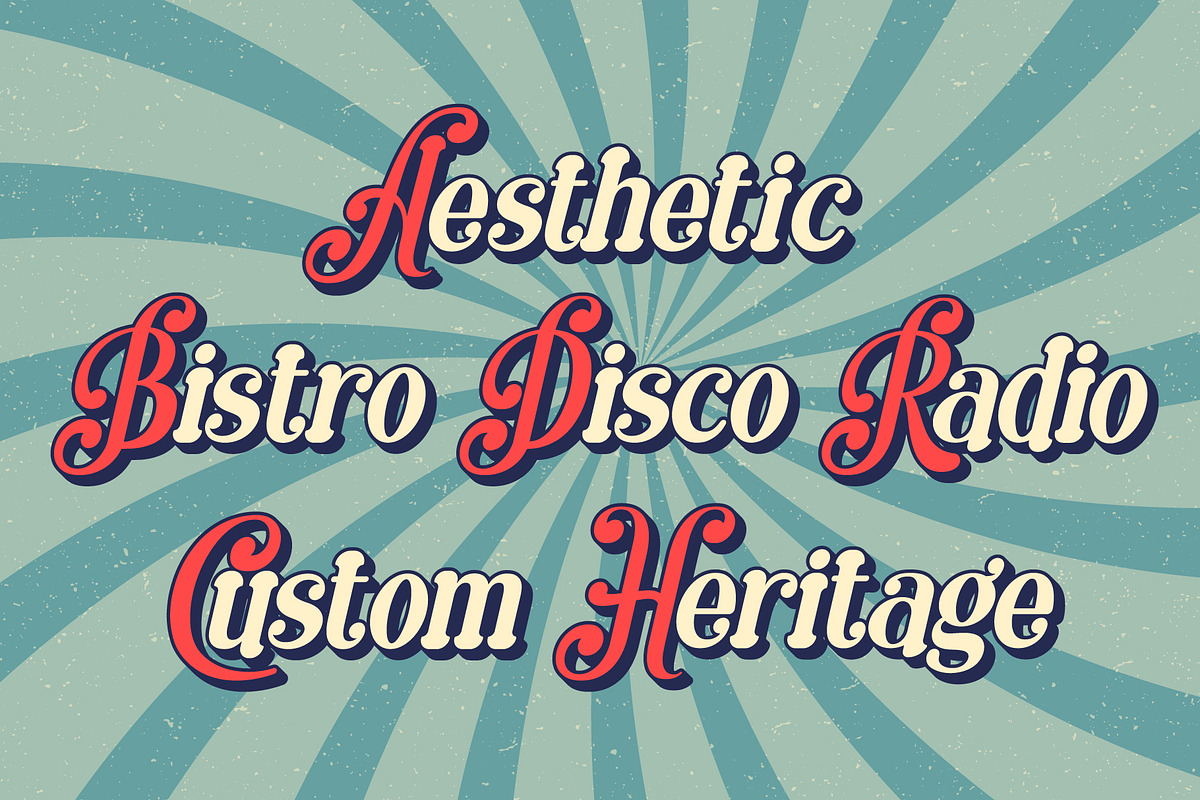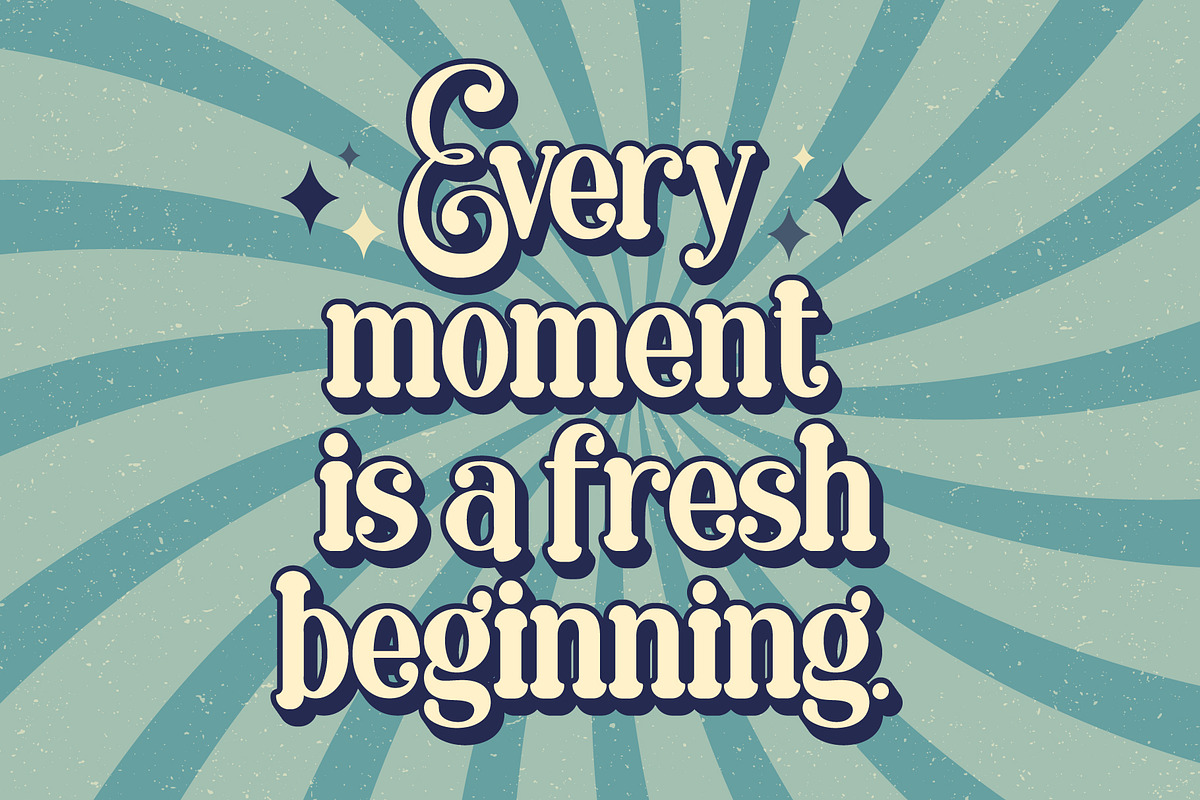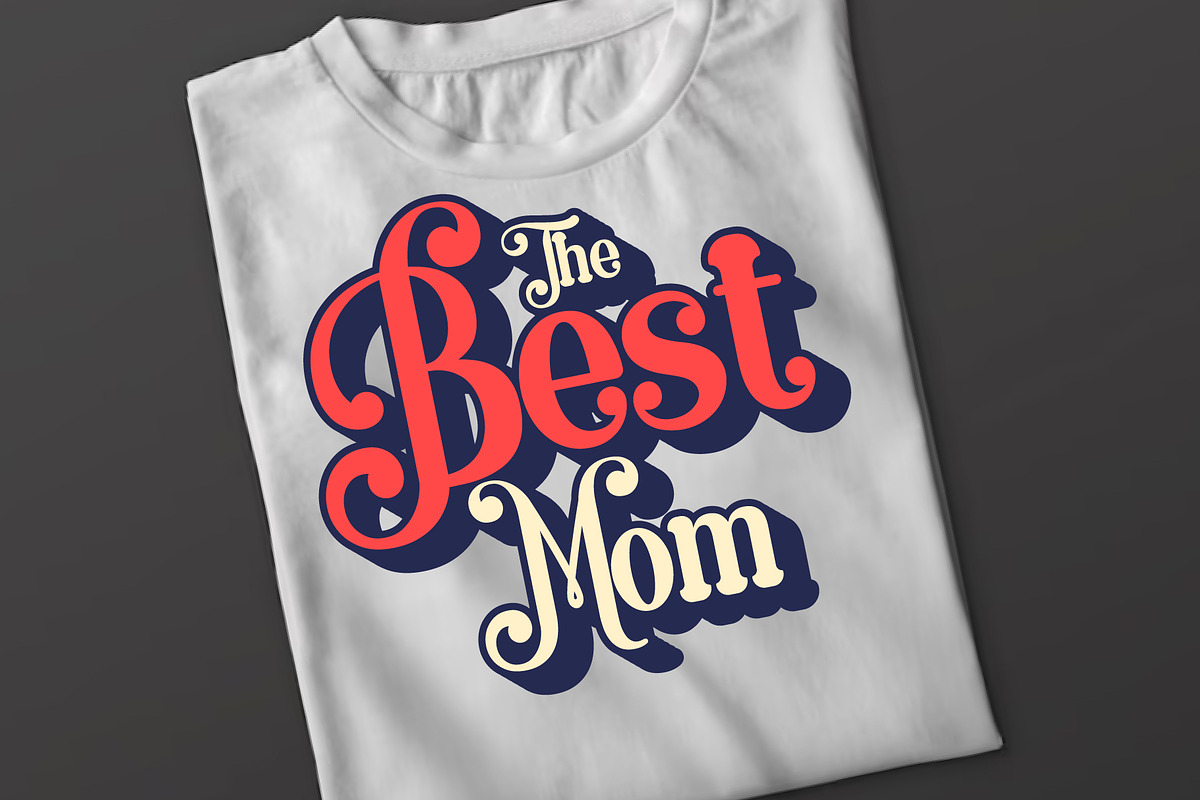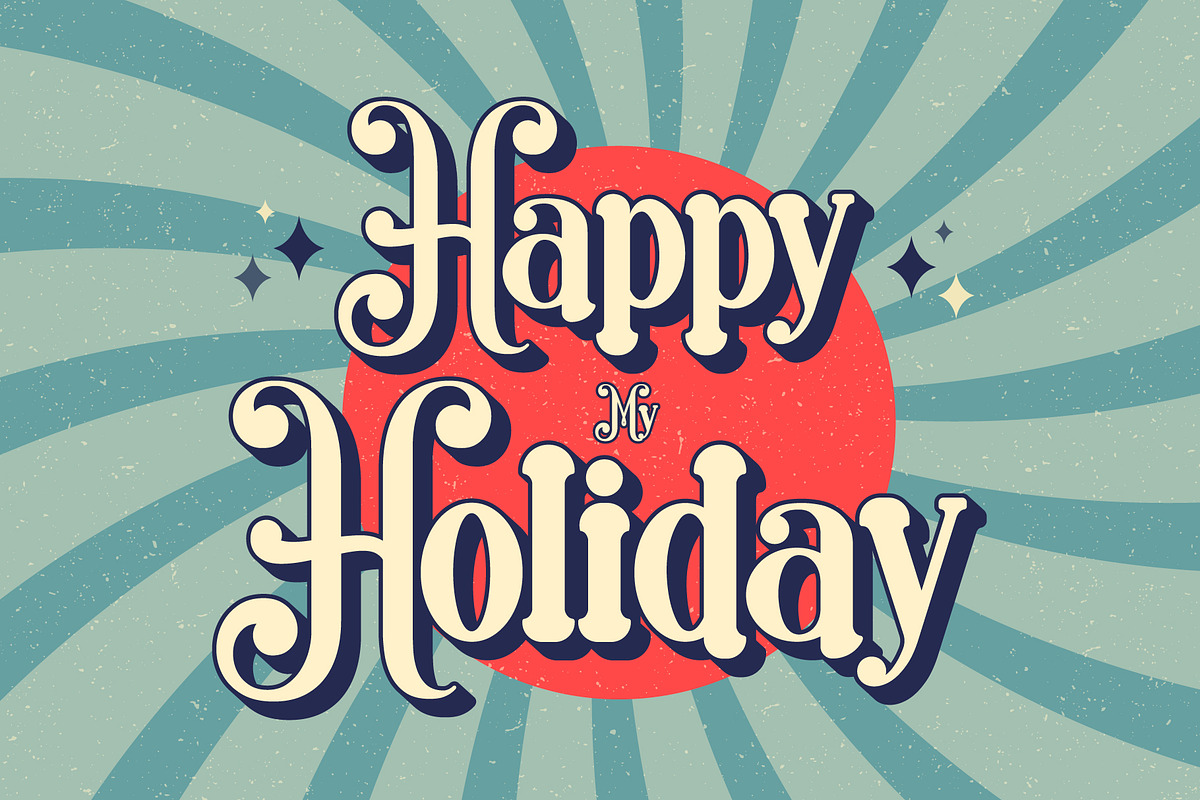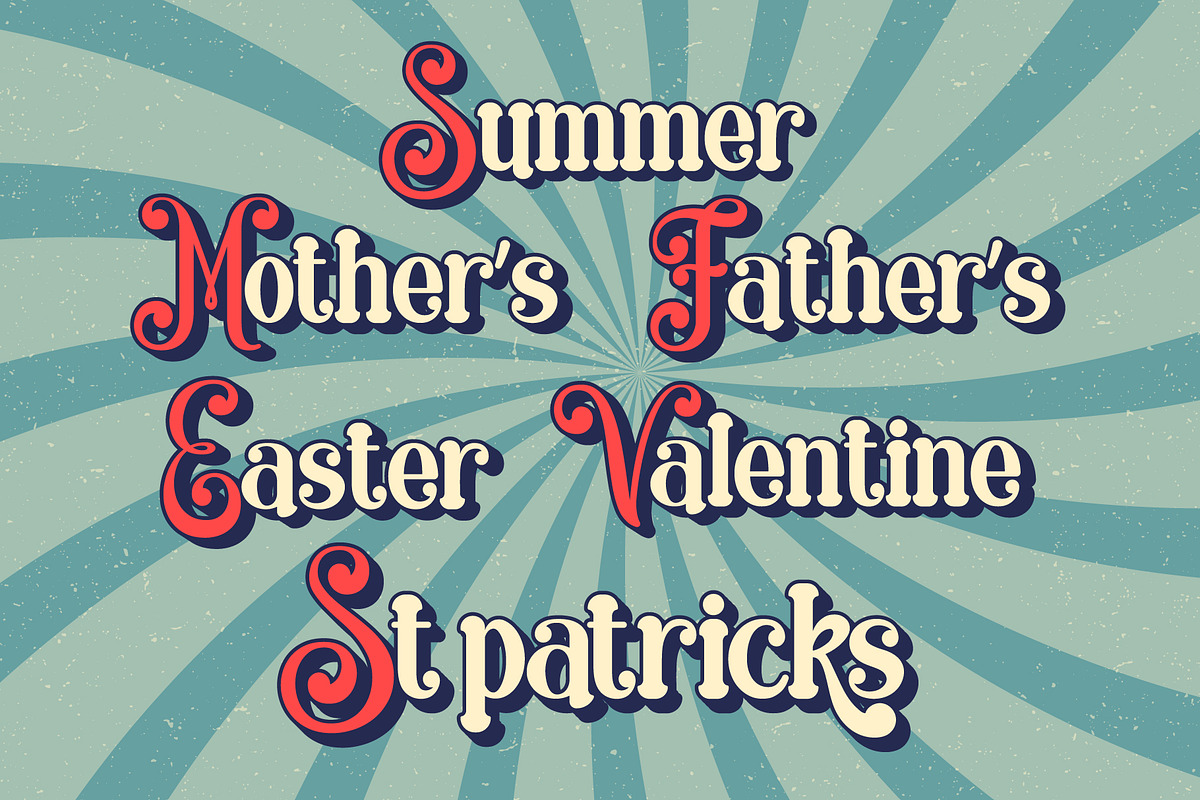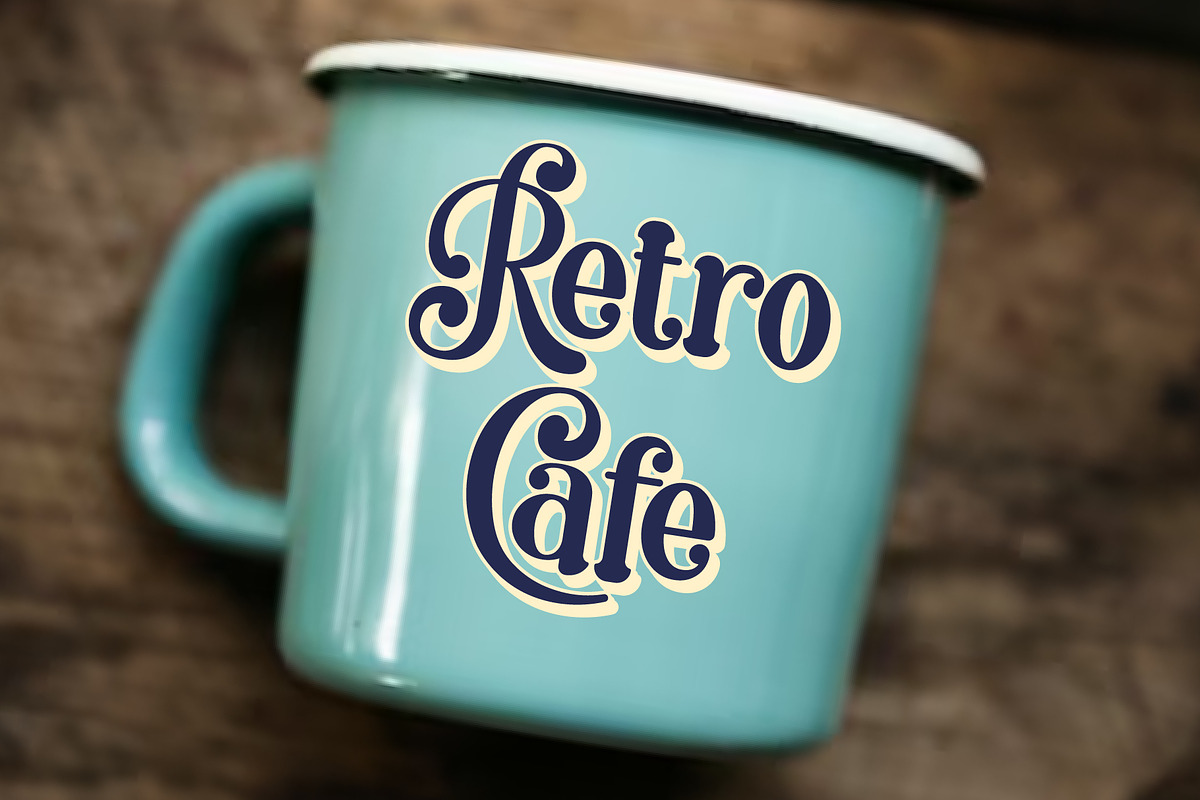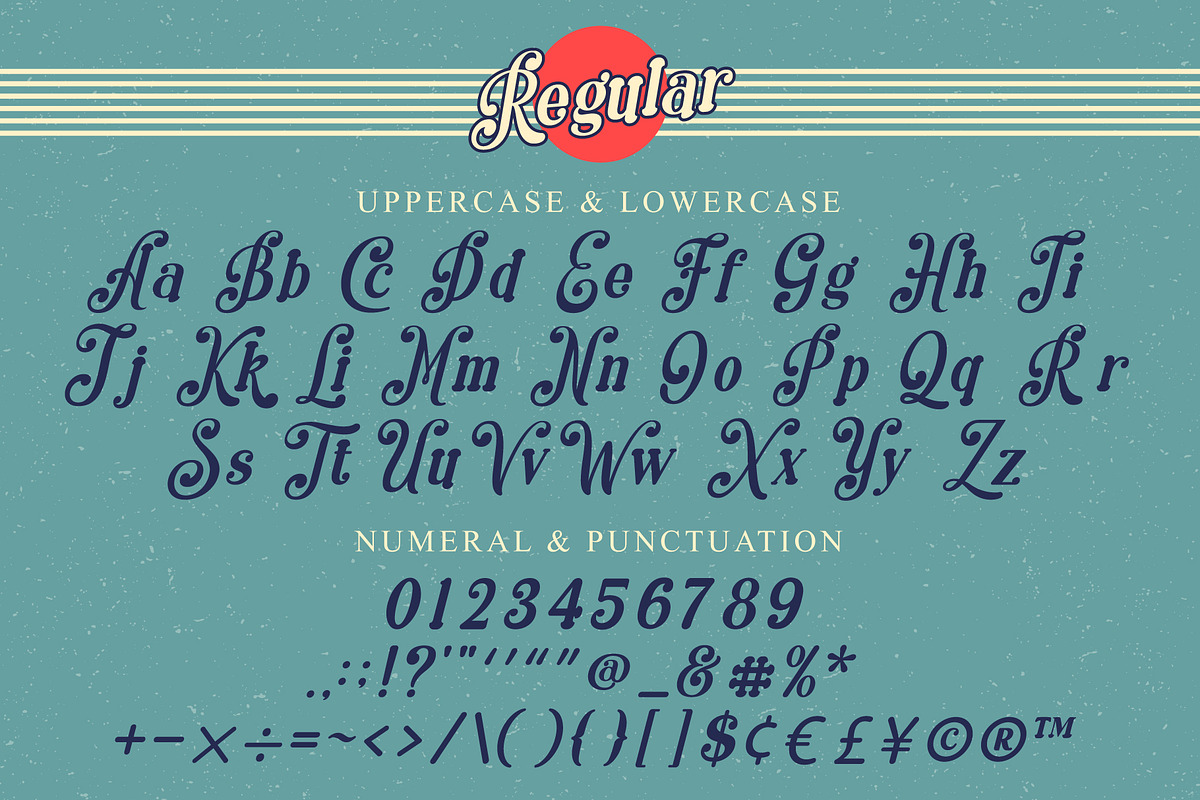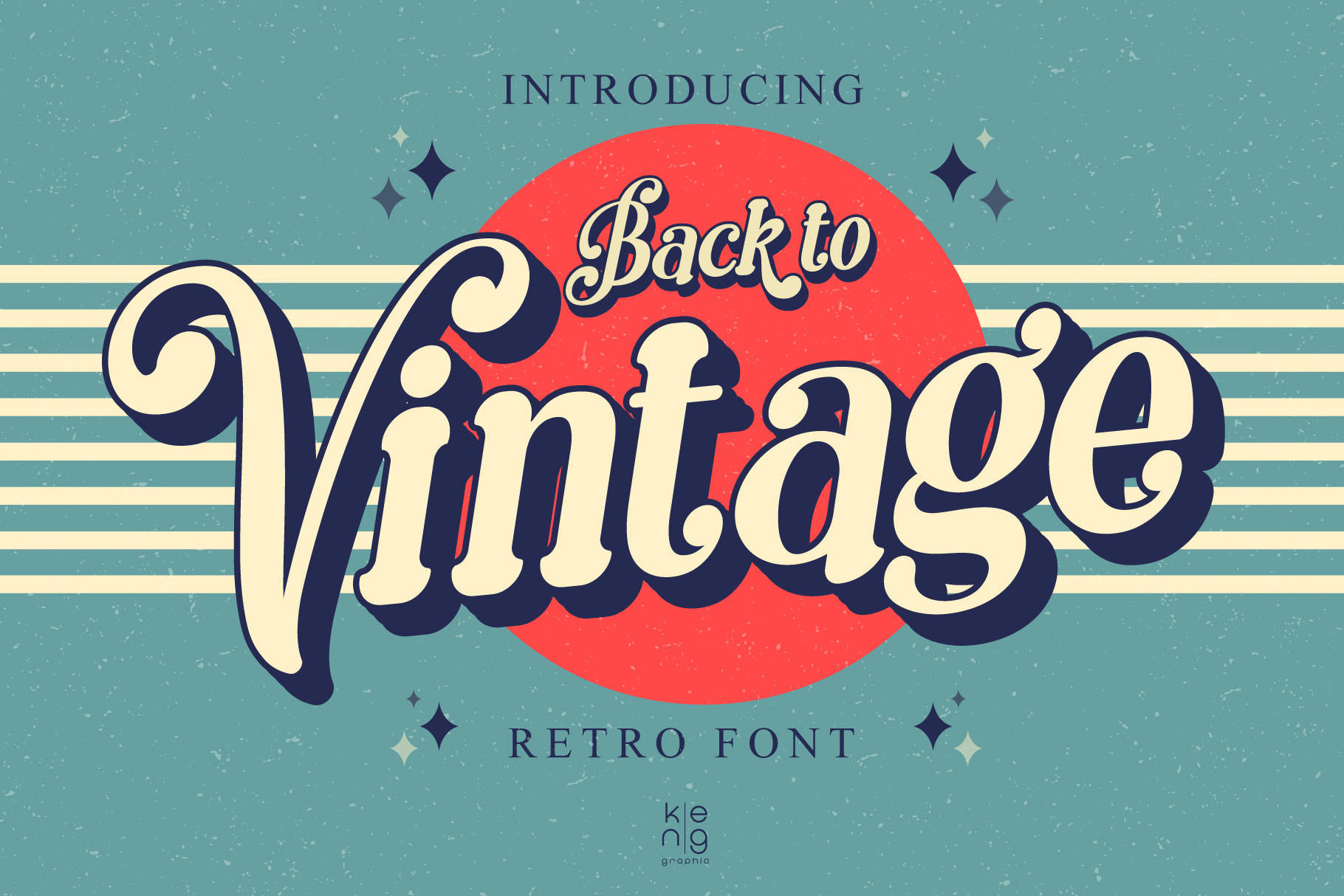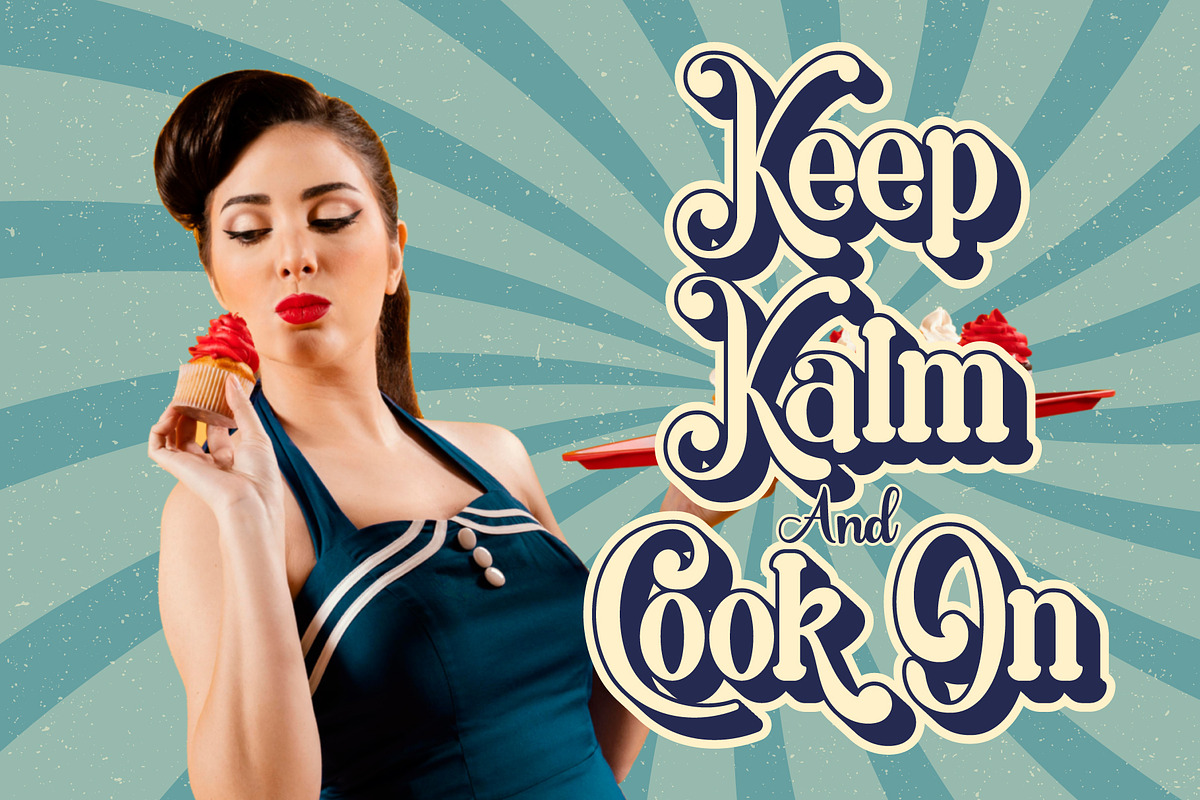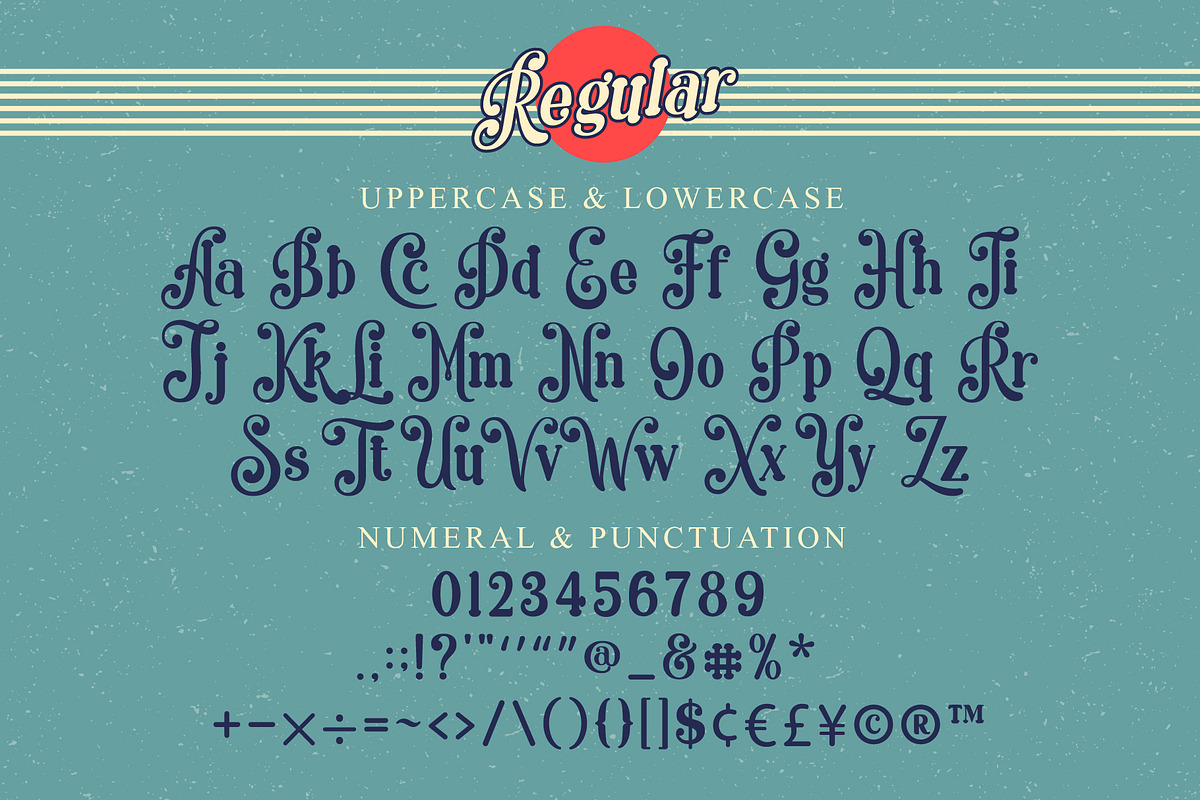
Back to vintage Font
Back to vintage is a vintage-style retro font. Inspired by the retro typography and typography of the 60s 70s and 80s, anything written in this font is instantly recognizable and will grab attention. It has a unique shape where every corner is softer and more rounded. Use this display font to add a special retro touch to any design idea you can think of.